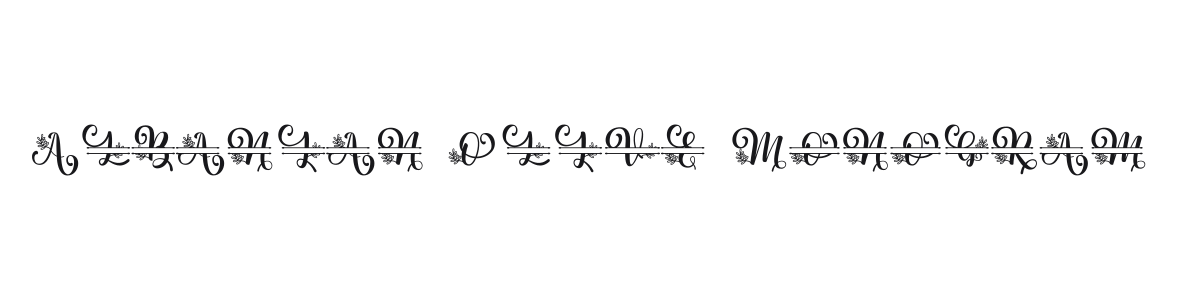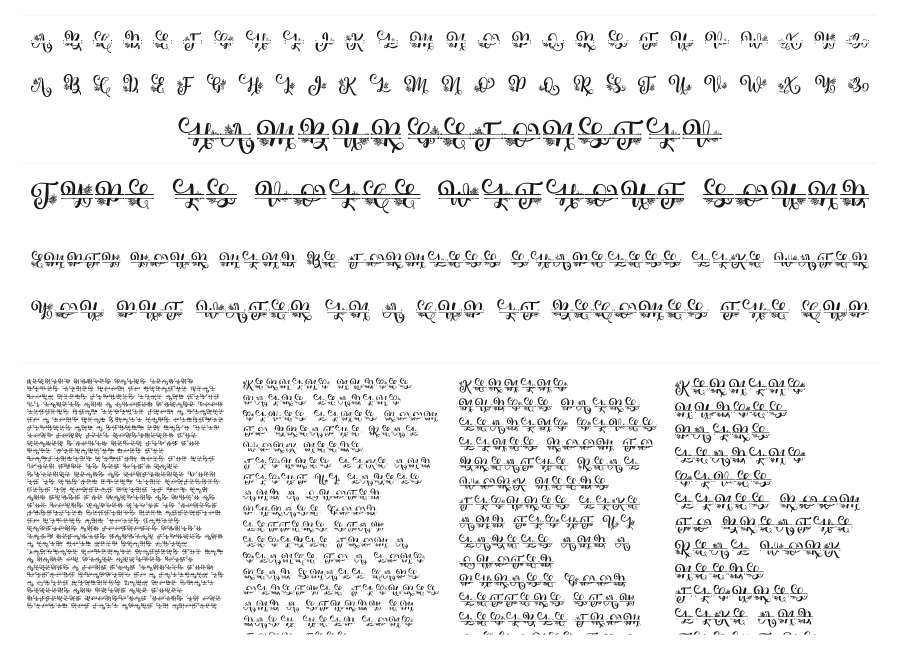
Albanian Olive Monogram
by Madatype Studio · Website
Albanian Olive Monogram is an ornate decorative monogram font built on sweeping calligraphic script with extreme stroke contrast and intricate botanical flourishes. Each character is layered with delicate floral detailing at the baseline, giving it the quality of Victorian copperplate engraving. It suits wedding stationery, luxury branding, and any project that calls for ceremonial elegance.